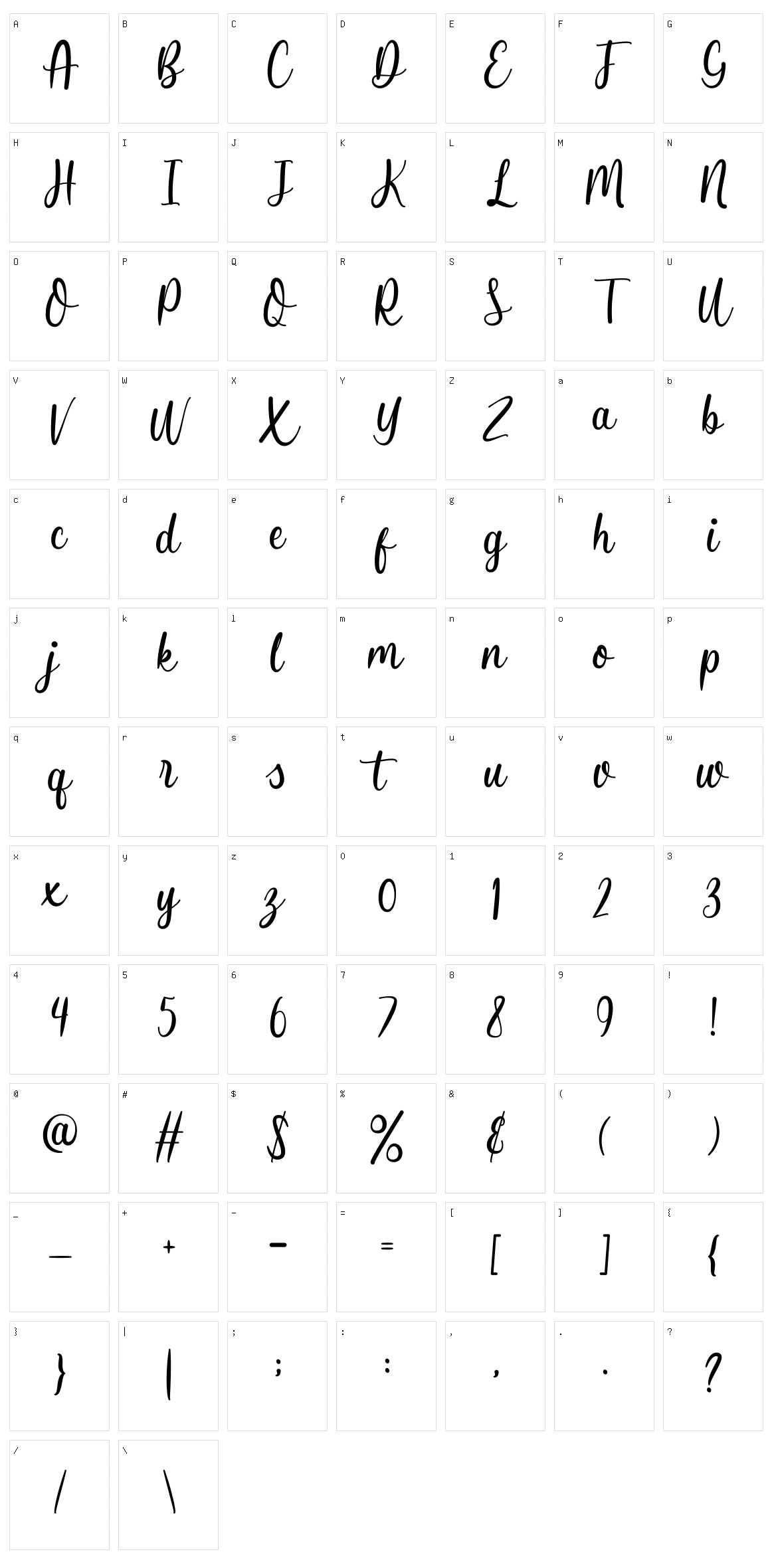
The free font Butterfly Winter is carefully designed by StringLabs Creative Studio, showcasing a thoughtful balance of creativity and usability and falls under the Script font style. When you download the ZIP file, it contains only 670.56 KB of font files, making it lightweight and quick to download. Please review the license details below to understand permitted usage and distribution rights. If license information is not available, we recommend using this font for personal projects only or contacting the author directly for commercial usage permissions.